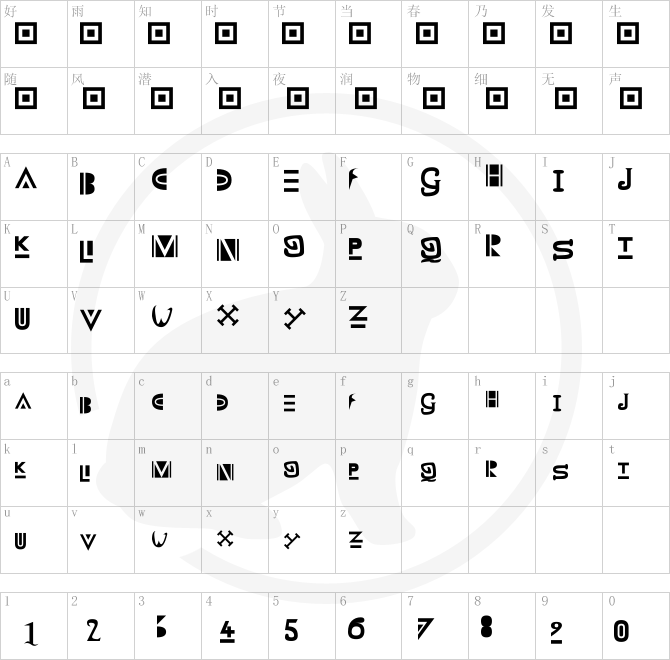
- Font Name:Zany Whatever It Means
Zany-Whatever-It-Means.ttf is a very beautiful artistic font, Zany-Whatever-It-Means.ttf is widely used in the design and printing of various books and pictures,Zany-Whatever-It-Means.ttf has a strong visual impact,Zany-Whatever-It-Means.ttf is a commonly used font in newspapers, magazines and books, and is used in posters, e-commerce Poster design, store design, logo design, font design and other fields.Zany-Whatever-It-Means.